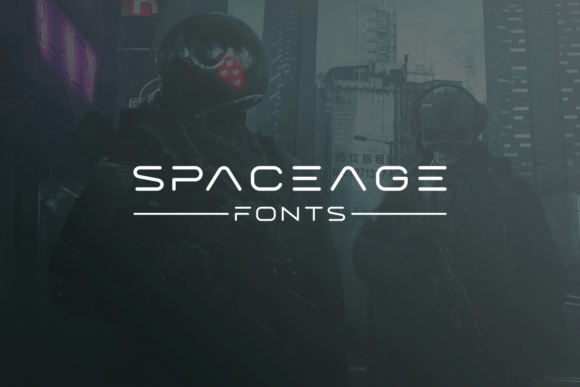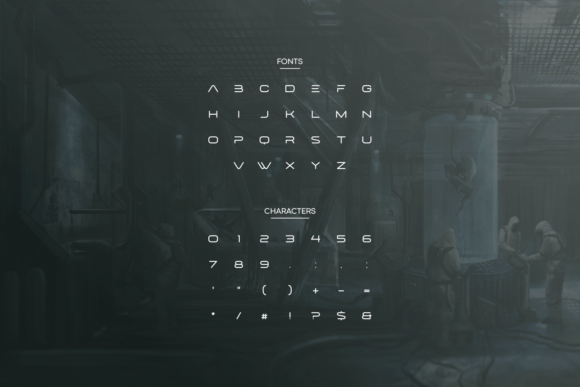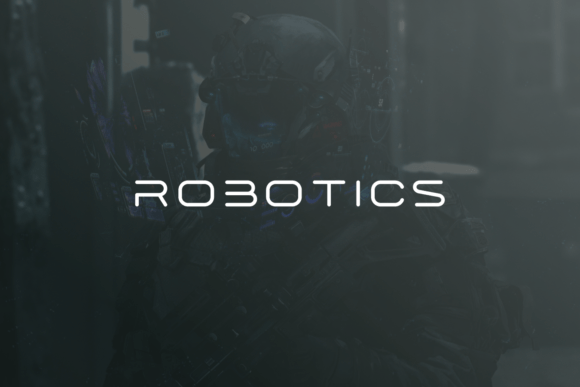
Introducing Baropus Font: The Ultimate Display Font for Modern Designs
Are you tired of using the same old fonts for your headlines, branding, and logo designs? Look no further than Baropus Font, a cool and neat display font that’s taking the design world by storm. With its simple yet modern and elegant look, Baropus Font is the perfect choice for designers and crafters looking to elevate their designs to the next level.
The Characteristics of Baropus Font
So, what makes Baropus Font so special? For starters, its smooth angular shape gives it a classy and sophisticated look that’s hard to resist. The font’s simple design makes it highly versatile, allowing it to be used in a wide range of design applications, from bold headlines to elegant logos. Whether you’re designing a website, brochure, or business card, Baropus Font is sure to make a lasting impression.
Why Designers and Crafters Love Baropus Font
Designers and crafters love Baropus Font for many reasons. Here are just a few:
- Modern and Elegant Look: Baropus Font has a modern and elegant look that’s perfect for designs that require a touch of sophistication.
- Highly Versatile: The font’s simple design makes it highly versatile, allowing it to be used in a wide range of design applications.
- Easy to Read: Despite its elegant look, Baropus Font is easy to read, making it perfect for use in headlines, titles, and other display text.
- Unique and Memorable: Baropus Font has a unique and memorable look that’s sure to make your designs stand out from the crowd.
How to Use Baropus Font in Your Designs
Using Baropus Font in your designs is easy. Here are a few tips to get you started:
- Headlines and Titles: Use Baropus Font to create bold and eye-catching headlines and titles that grab attention.
- Logo Designs: Use Baropus Font to create elegant and sophisticated logos that reflect your brand’s personality.
- Branding and Advertising: Use Baropus Font to create consistent and recognizable branding and advertising materials that stand out from the crowd.
- Web Design: Use Baropus Font to create modern and elegant website designs that showcase your content in style.
The Benefits of Using Baropus Font
By using Baropus Font in your designs, you can enjoy a range of benefits, including:
- Increased Legibility: Baropus Font is easy to read, making it perfect for use in headlines, titles, and other display text.
- Improved Brand Recognition: By using Baropus Font consistently across your designs, you can create a strong and recognizable brand identity.
- Enhanced Visual Appeal: Baropus Font has a modern and elegant look that’s sure to enhance the visual appeal of your designs.
- Flexibility and Versatility: Baropus Font is highly versatile, allowing you to use it in a wide range of design applications.
In conclusion, Baropus Font is a cool and neat display font that’s perfect for designers and crafters looking to elevate their designs to the next level. With its simple yet modern and elegant look, Baropus Font is highly versatile and easy to use, making it perfect for a wide range of design applications. Whether you’re designing headlines, logos, or branding materials, Baropus Font is sure to make a lasting impression.